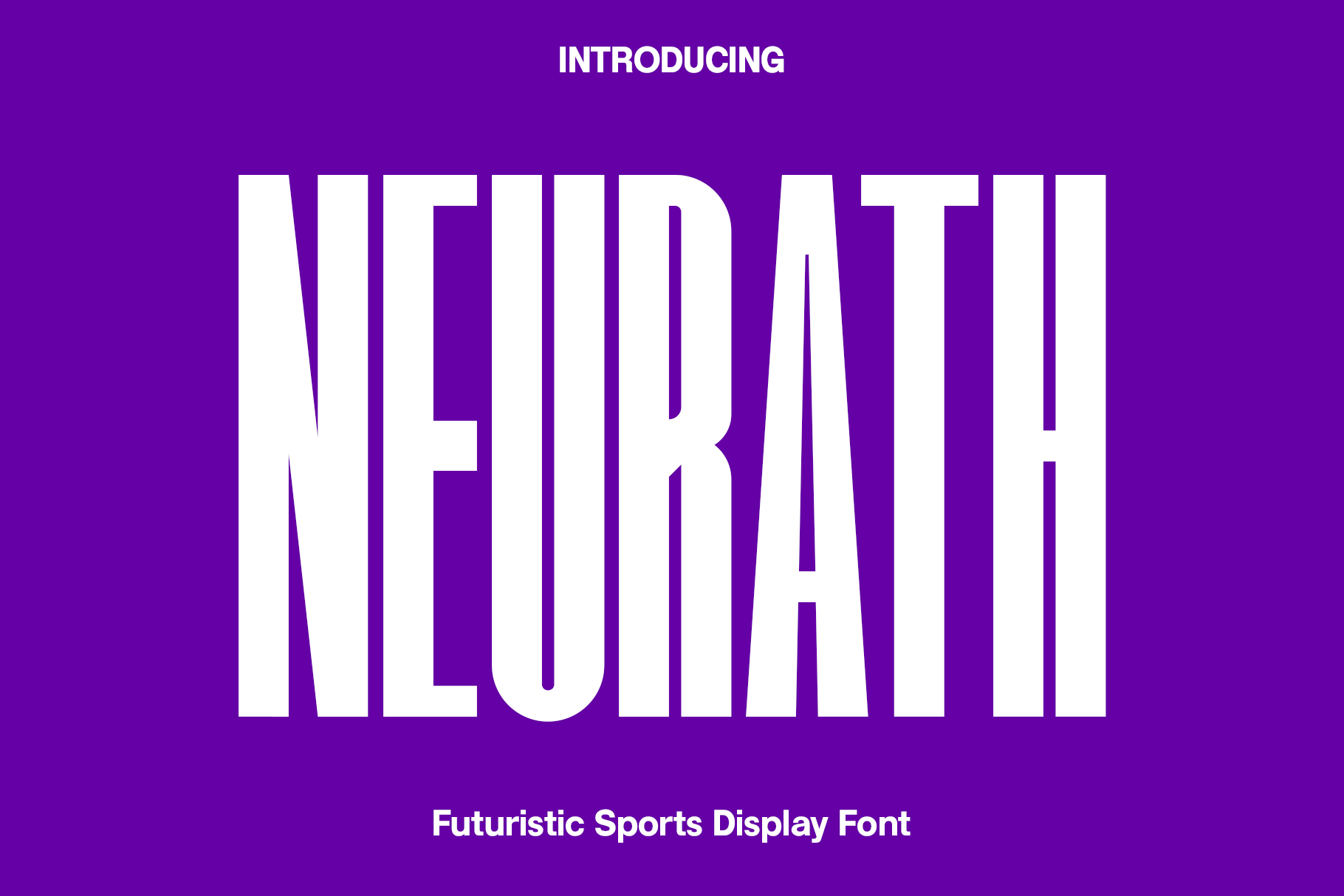
Neurath - Futuristic Display Font
Neurath is a powerful futuristic sports display font designed for projects that demand speed, energy, and visual impact. Inspired by competitive sports, racing technology, and modern athletic branding, Neurath combines wide italic letterforms with sharp cutout details and a dynamic slanted structure. The result is a bold sense of motion that gives headlines, logos, and titles an energetic and professional appearance while maintaining strong readability.
Perfect for football matches, sports teams, racing events, cycling competitions, esports graphics, gaming logos, athletic apparel, team branding, posters, promotional flyers, social media graphics, merchandise, monograms, and advertising campaigns, Neurath brings a confident and competitive character to every project. Its wide proportions and forward-moving structure make it especially effective for large display typography where impact and clarity are essential.
Whether you're creating a powerful sports identity, designing a racing-inspired logo, producing an esports campaign, or developing bold promotional graphics, Neurath gives you the flexibility to create typography that feels fast, modern, and distinctive. Its futuristic styling also makes it suitable for technology, automotive, gaming, and other projects that require a strong sense of movement and innovation.
With its athletic personality, dynamic construction, and contemporary aesthetic, Neurath transforms ordinary text into striking visual statements. It is an excellent choice for designers who want to combine the intensity of sports typography with a modern futuristic edge.
Neurath Font Features:
Wide italic display letterforms
Modern cutout details
Dynamic slanted structure
Strong and energetic visual style
Excellent readability for display typography
Ideal for sports, football, racing, cycling, gaming, esports, automotive, logos, posters, apparel, and branding